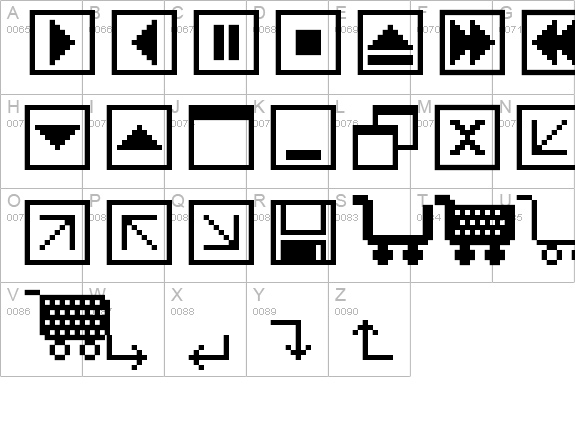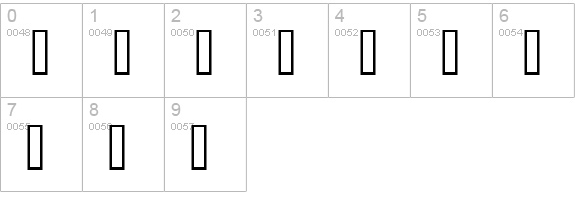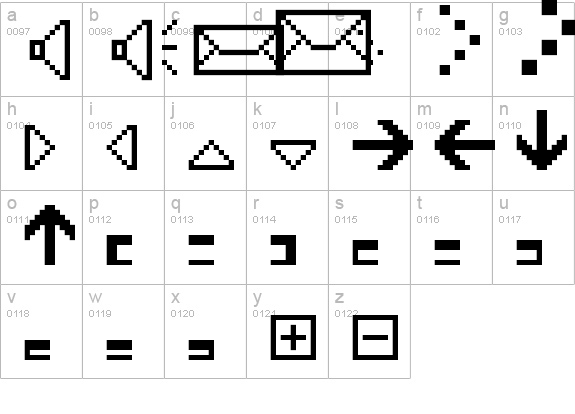
FFF Extras 2 font is a versatile and creative typeface that adds a unique touch to any design project. This font is perfect for adding decorative elements, ornaments, and embellishments to your work. Featuring a wide range of symbols, icons, and shapes, FFF Extras 2 font is a must-have for designers looking to enhance their creations with a touch of flair. Best of all, FFF Extras 2 font is available for free download at FontsMarket.com. This means you can easily access this font and incorporate its charming and eye-catching elements into your designs without any cost. Whether you are working on a poster, flyer, website, or any other project, FFF Extras 2 font offers endless possibilities for adding visual interest and creativity. Download this font today and elevate your design game with its stunning collection of extras.